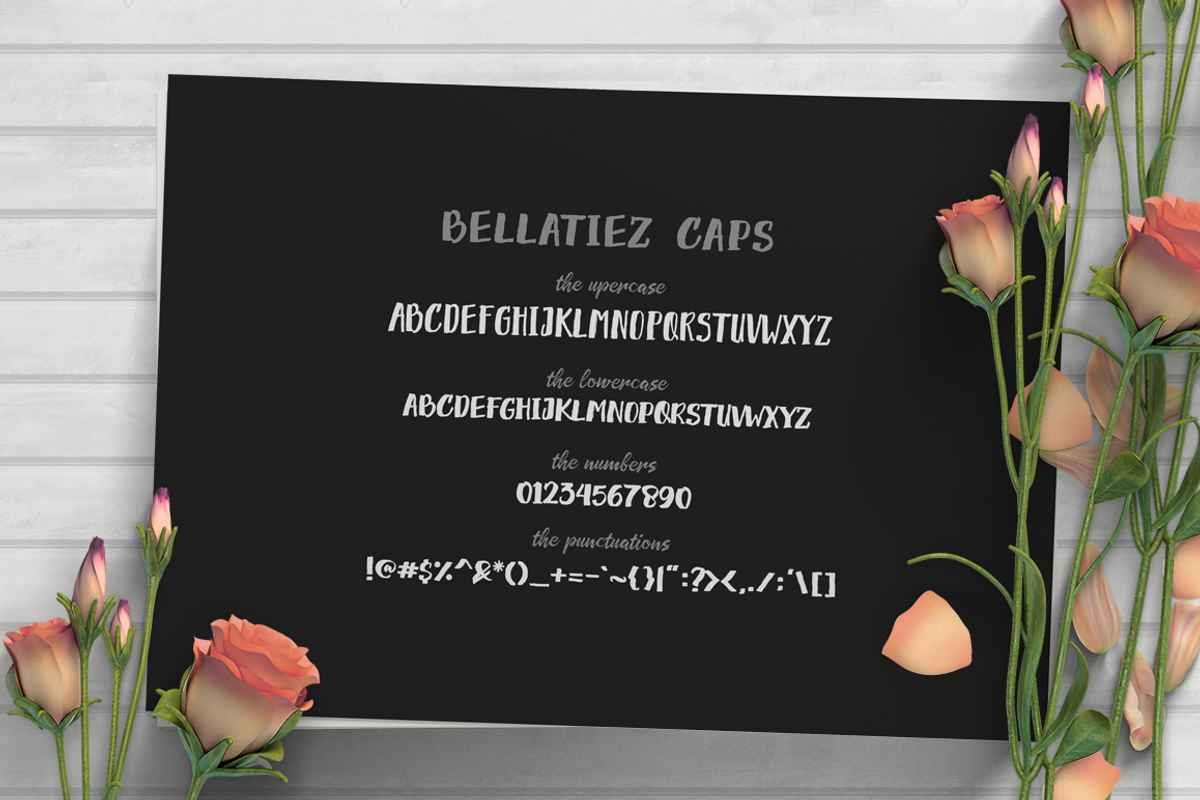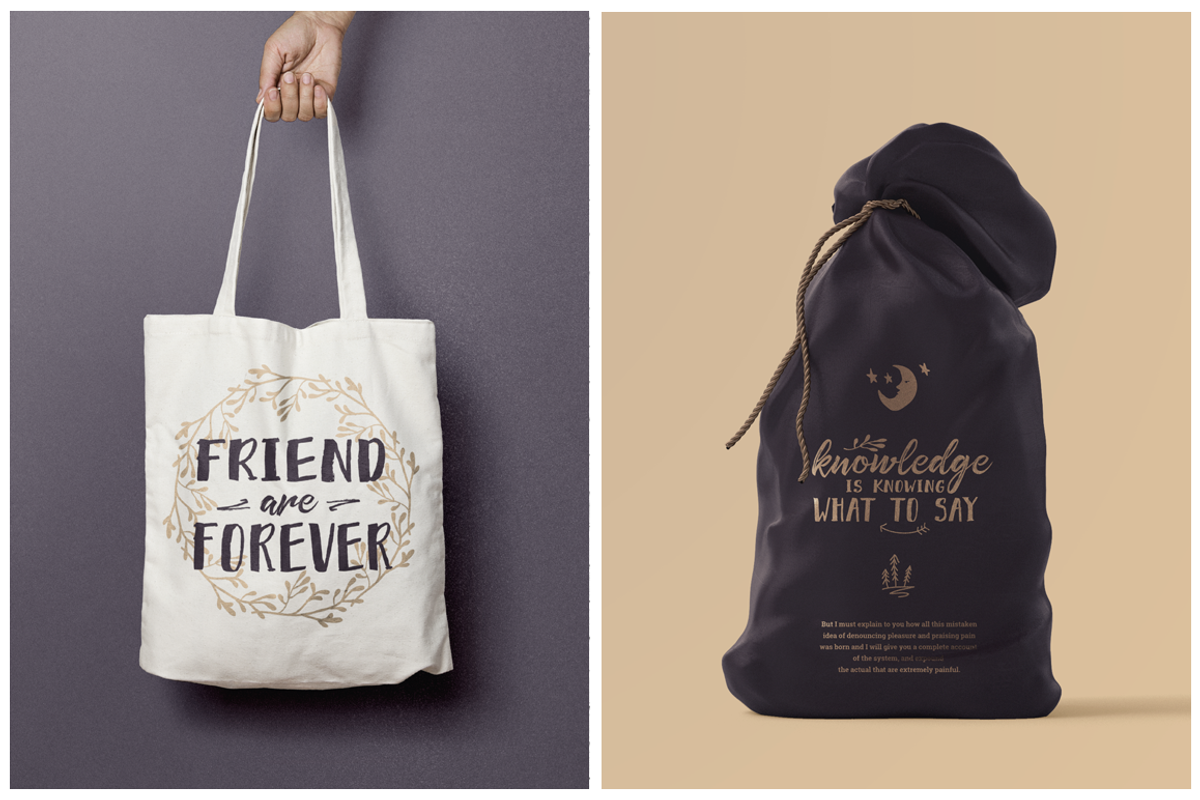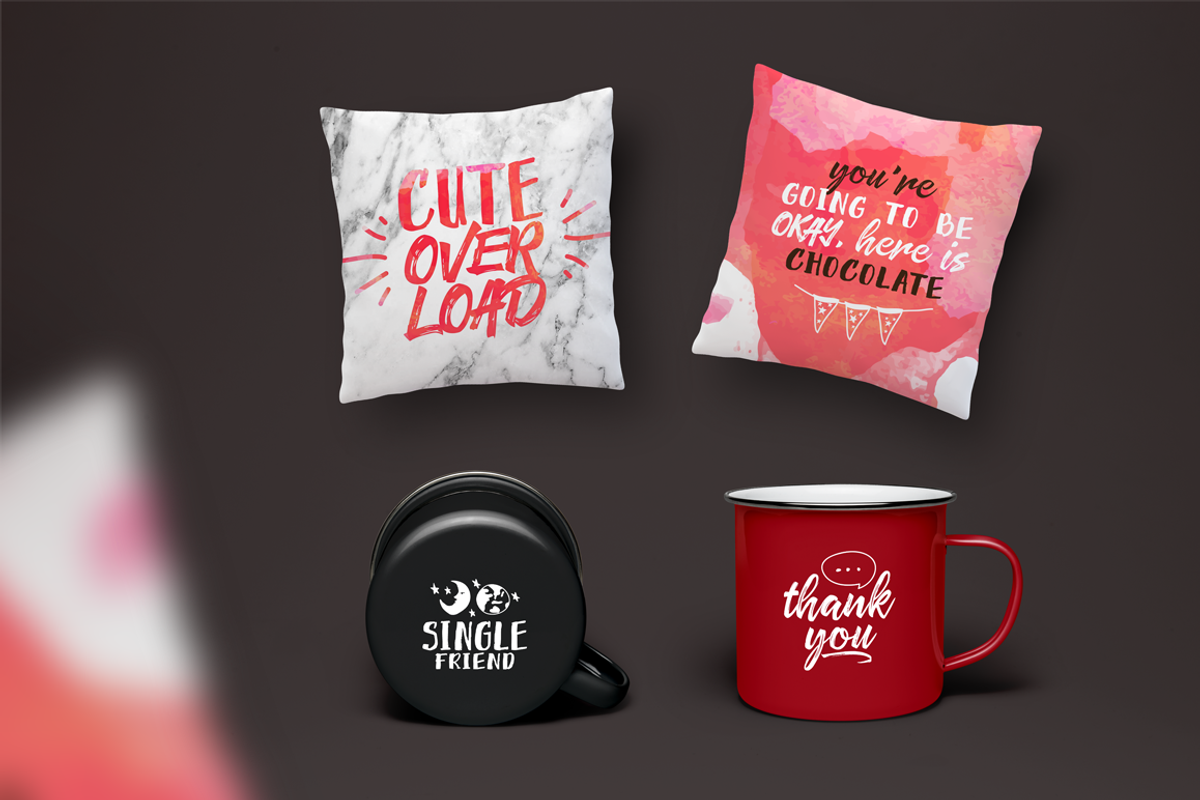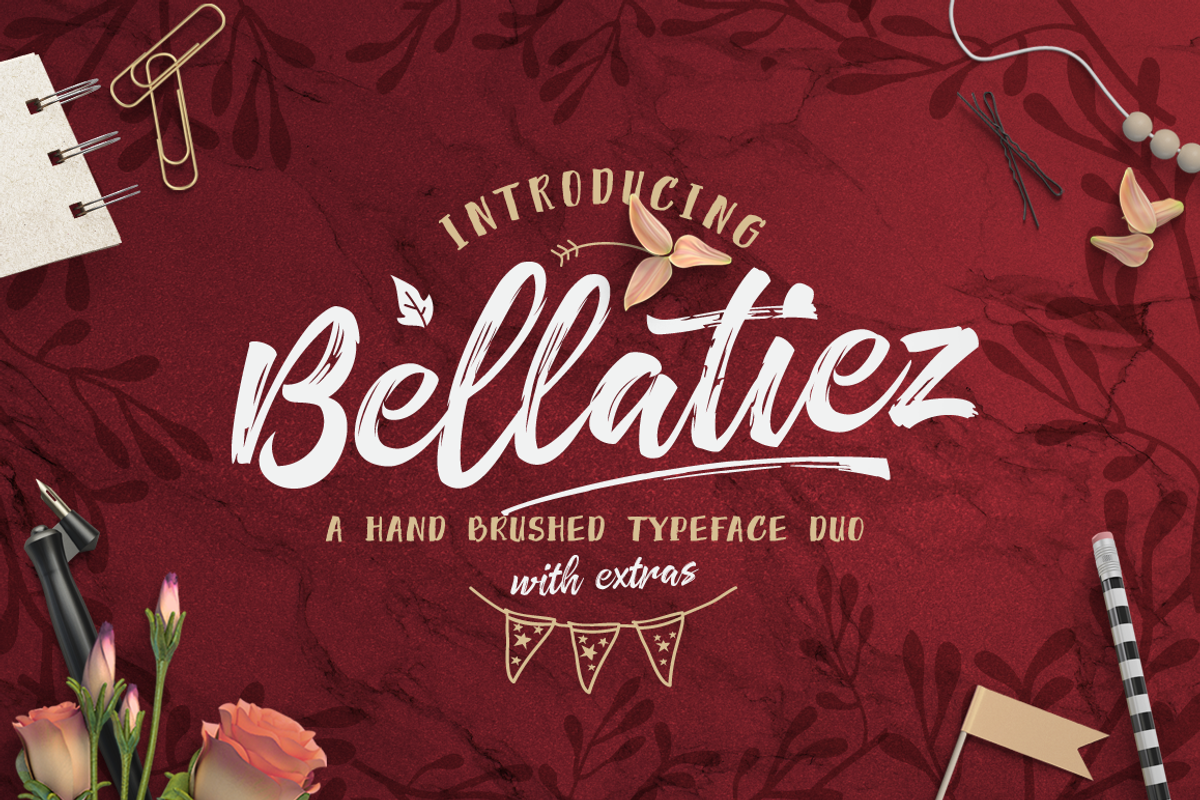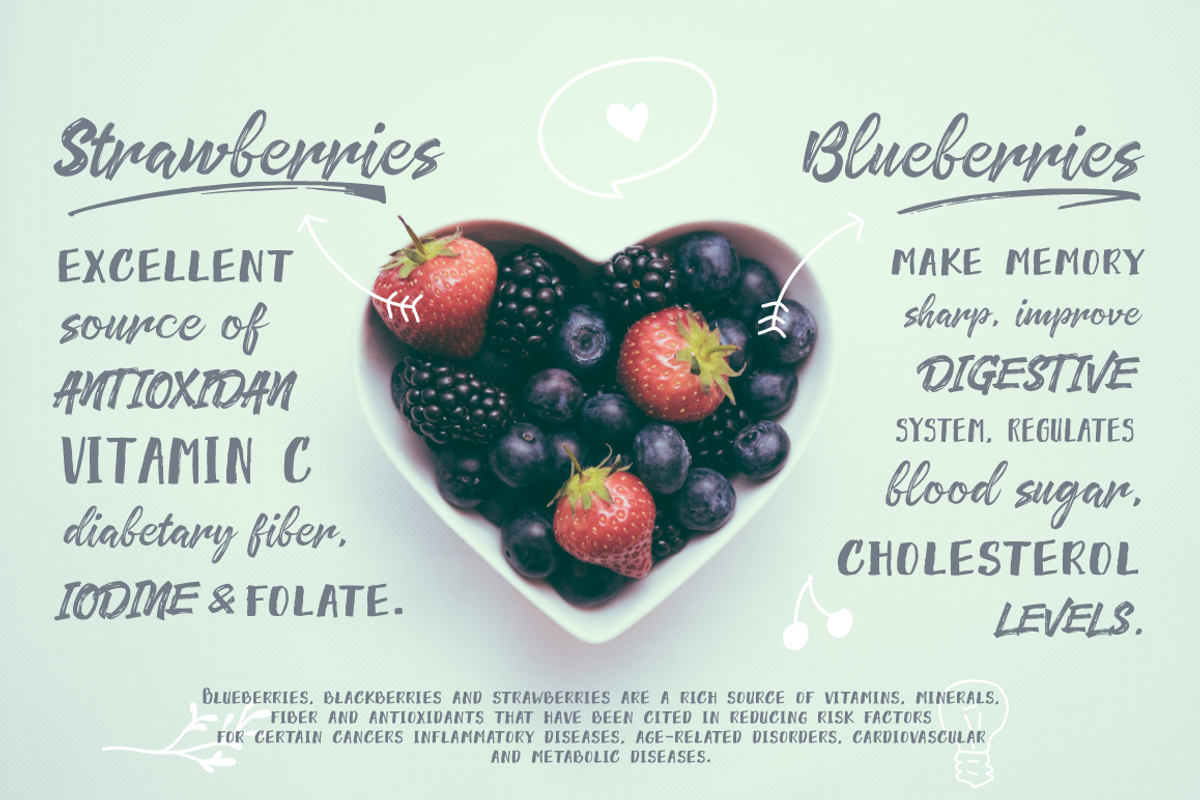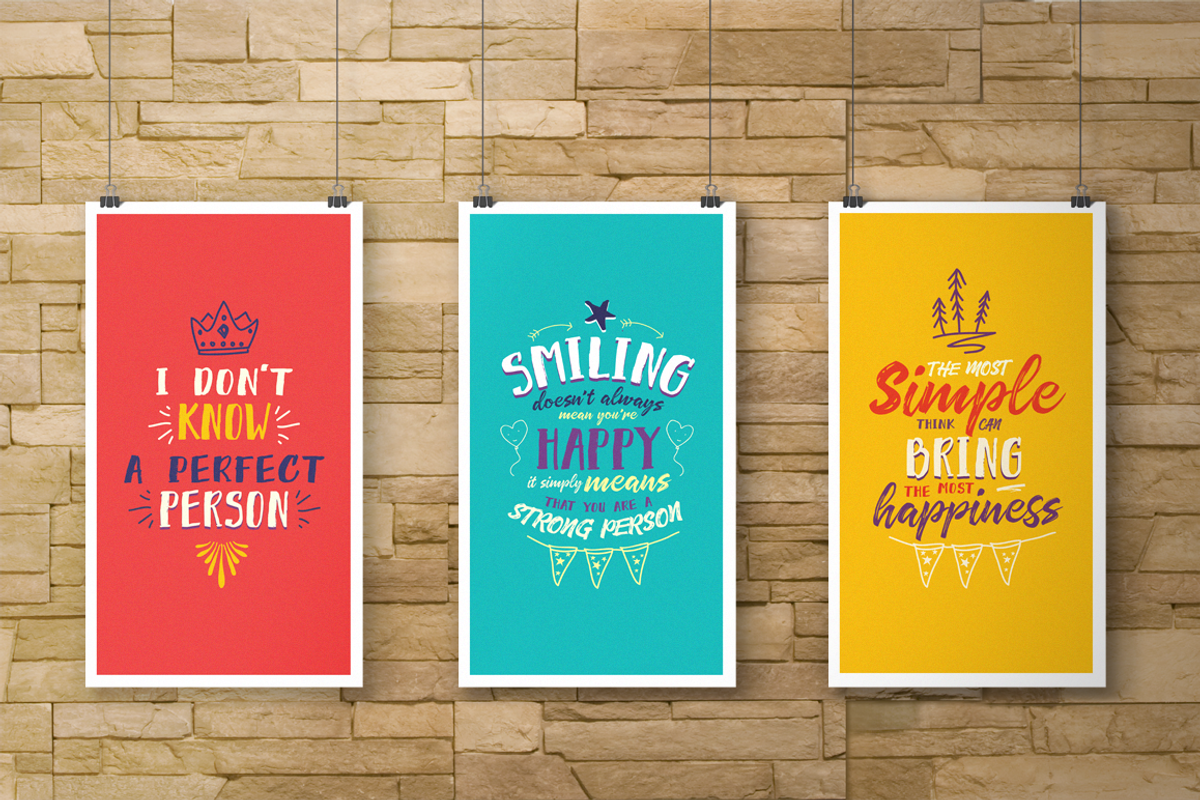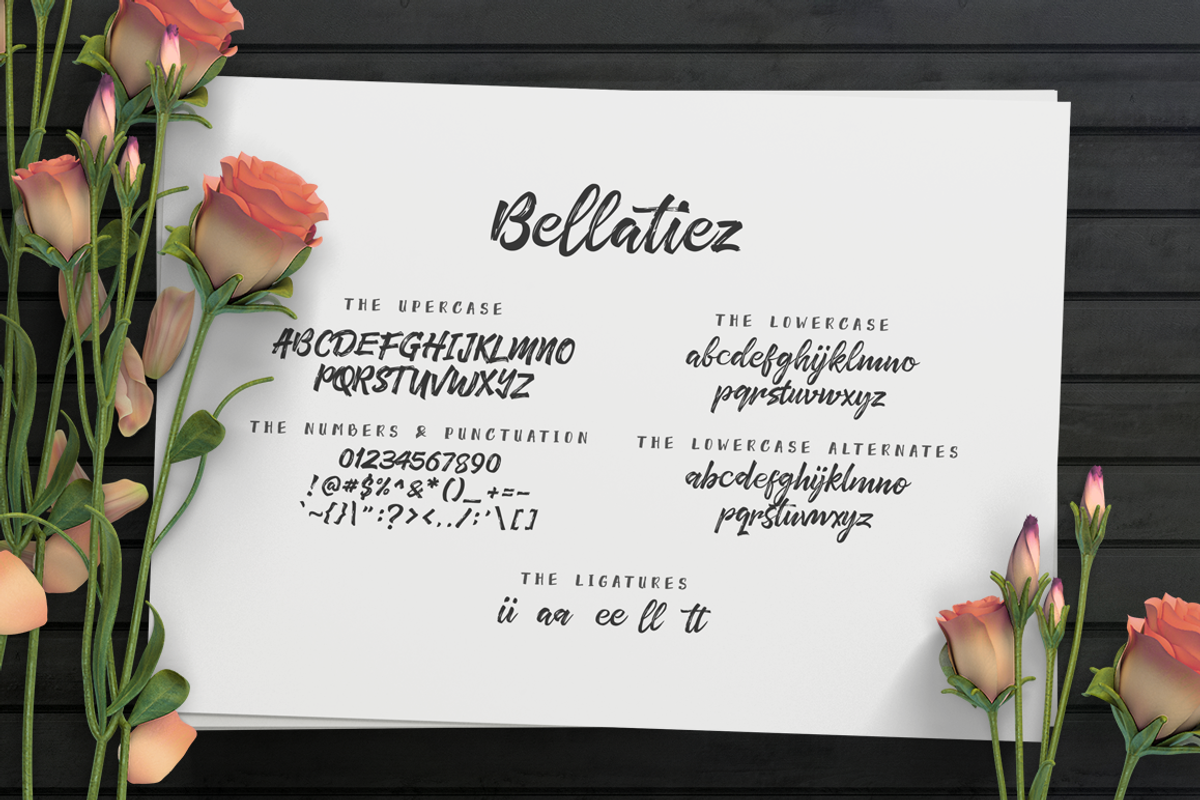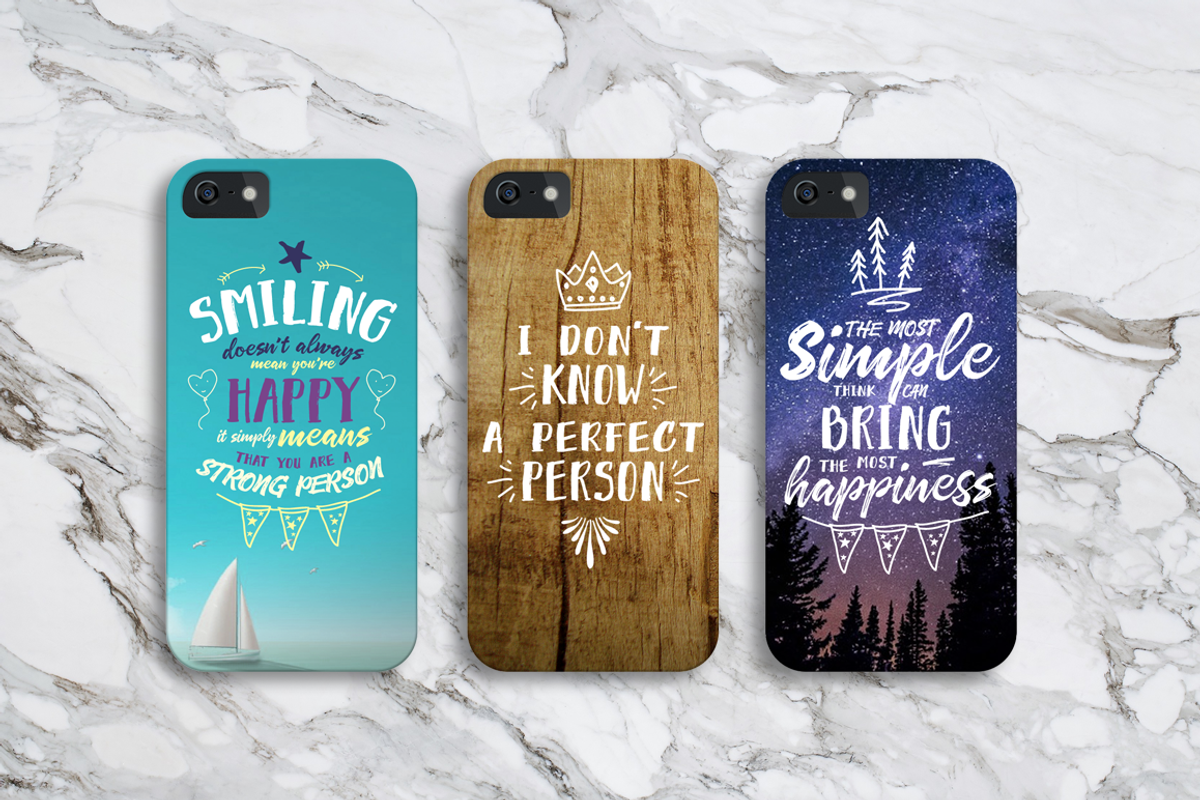
Bellatiez Font Duo + Bonus
Bellatiez Font Duo + Bonus by Typia Nesia is a font selected for branding, posters, packaging, typography.
- Extras - hand dooled illustrations and brushed swashes to add punch to your designs.
- What's Included : Bellatiez Reguler - a hand brused script font comes with upper and lowercase Standard Characters, Punctuation, Numerals.
- And other Glyphs variation of the OpenType features such as Stylistic Alternates and some Ligatures.
- Alternates are available for lowercase characters.
- Bellatiez Caps - a hand brused font containing uppercase only characters, punctuation, numerals.
Bellatiez Font Duo + Bonus by Typia Nesia fits naturally into Branding, posters, packaging, typography.